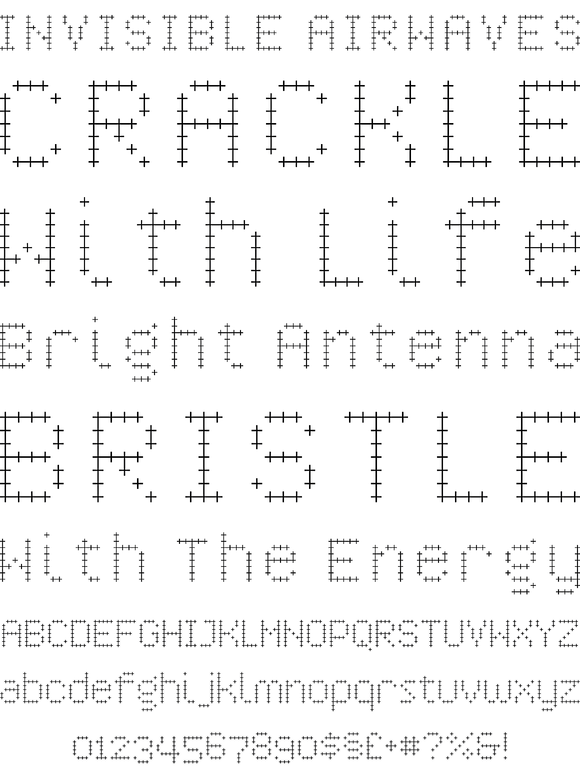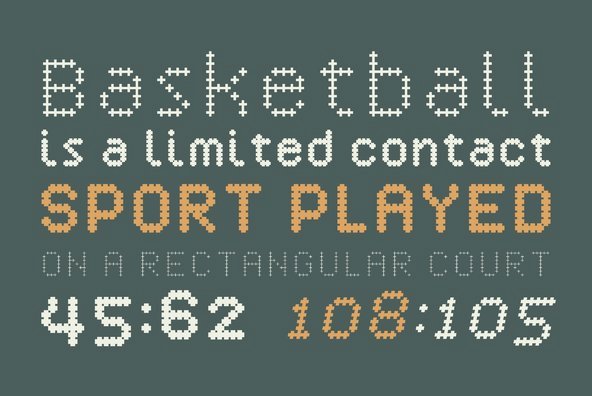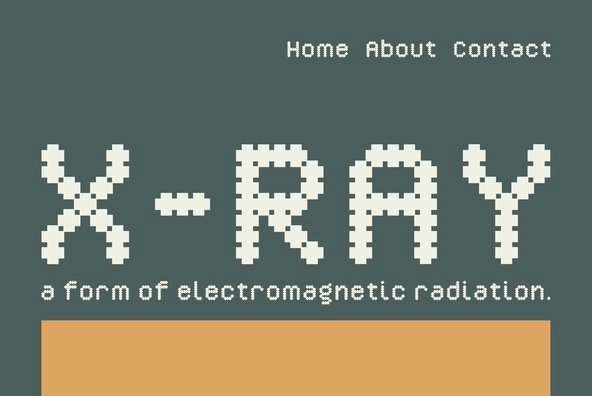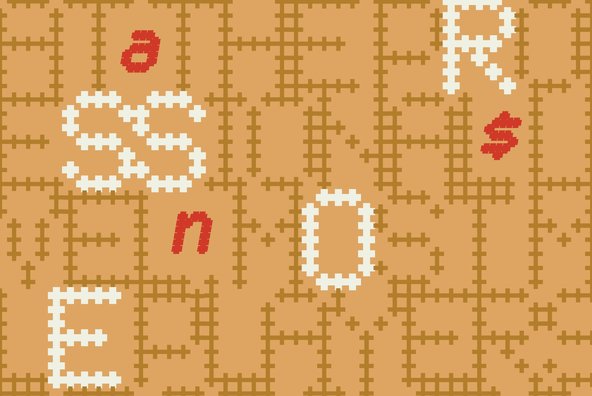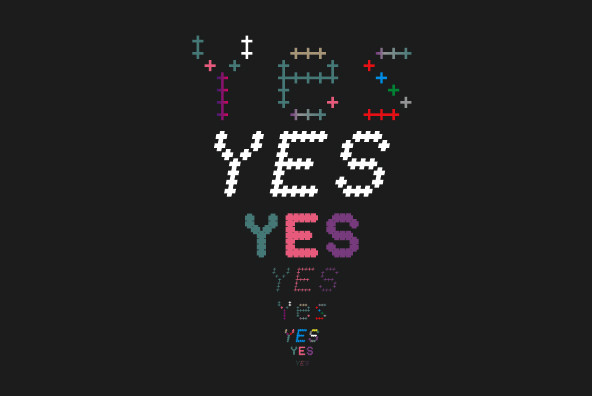
YWFT Crossover is oh-so-aptly named, since it started as custom lettering for branding work, then crossed over into font format. It also is comprised entirely of crosses--so very meta.
YWFT Crossover is oh-so-aptly named, since it started as custom lettering for branding work, then crossed over into font format. It also is comprised entirely of crosses--so very meta. YWFT Crossover functions much like a bitmap font, but contains beautiful details, such as extra tab lines, which results in a cross stitch-type effect. However, YWFT Crossover is far more consistent and digital than any cross stitch. YWFT Crossover was converted to Opentype format in 2010. Designed exclusively by Michael Cina and YouWorkForThem.